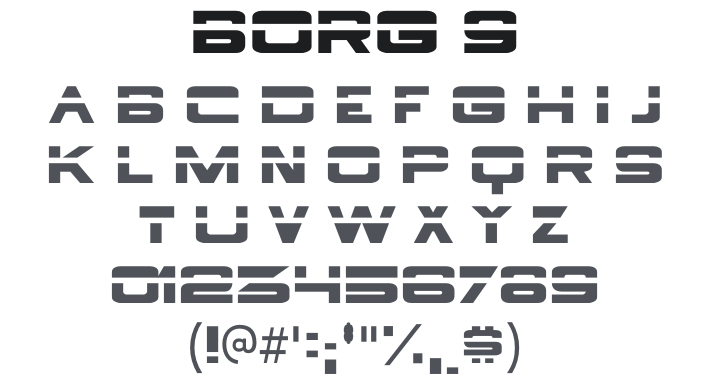
Borg 9 Font
About Borg 9
Borg 9 is a wide, bold 1980s-style techno display font inspired by the kind of stencilled lettering seen on fictitious high-tech military helicopters in TV and film. Its blocky, slab-like characters radiate cold authority and retro sci-fi grit. Perfect for military-themed designs, action game titles, dystopian posters, and anything channeling that unmistakable Reagan-era tech aesthetic.